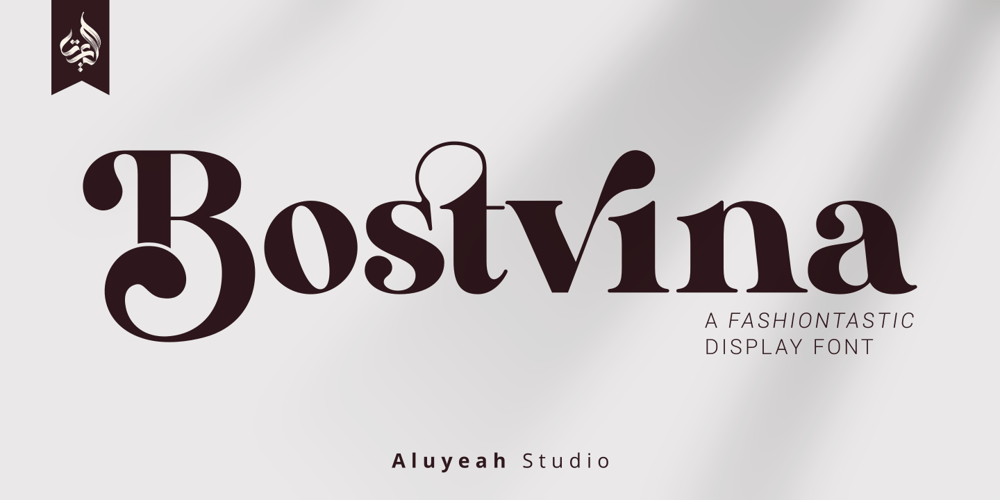
Bostvina Font Family was designed by Linggar Sundoro and published by Aluyeah Studio. Bostvina contains 1 styles and family package options. Bonjour! Bostvina is a fashiontastic display font. This font was carefully crafted and inspired by one of leading fashion brand in the world. In general, it creates a luxurious and elegant look in design.Coming to you with 90+ luxury alternate to create a perfectly beautiful, classy, chic, elegant, glamorous and luxurious design. Use this font for your fashion brand, resort, cosmetics, invitations, wedding, branding, packaging, magazines, boutique, social media, restaurant, spa, greeting cards, headers, headline and many more.Features:OpenType supportMultilingual support (15 languages)PUA EncodedSuper Easy to Use alternates – It’s OpenType support but you can easly call alternates character using special combination like A.2 B.4 D.3 etc so you dont need special software